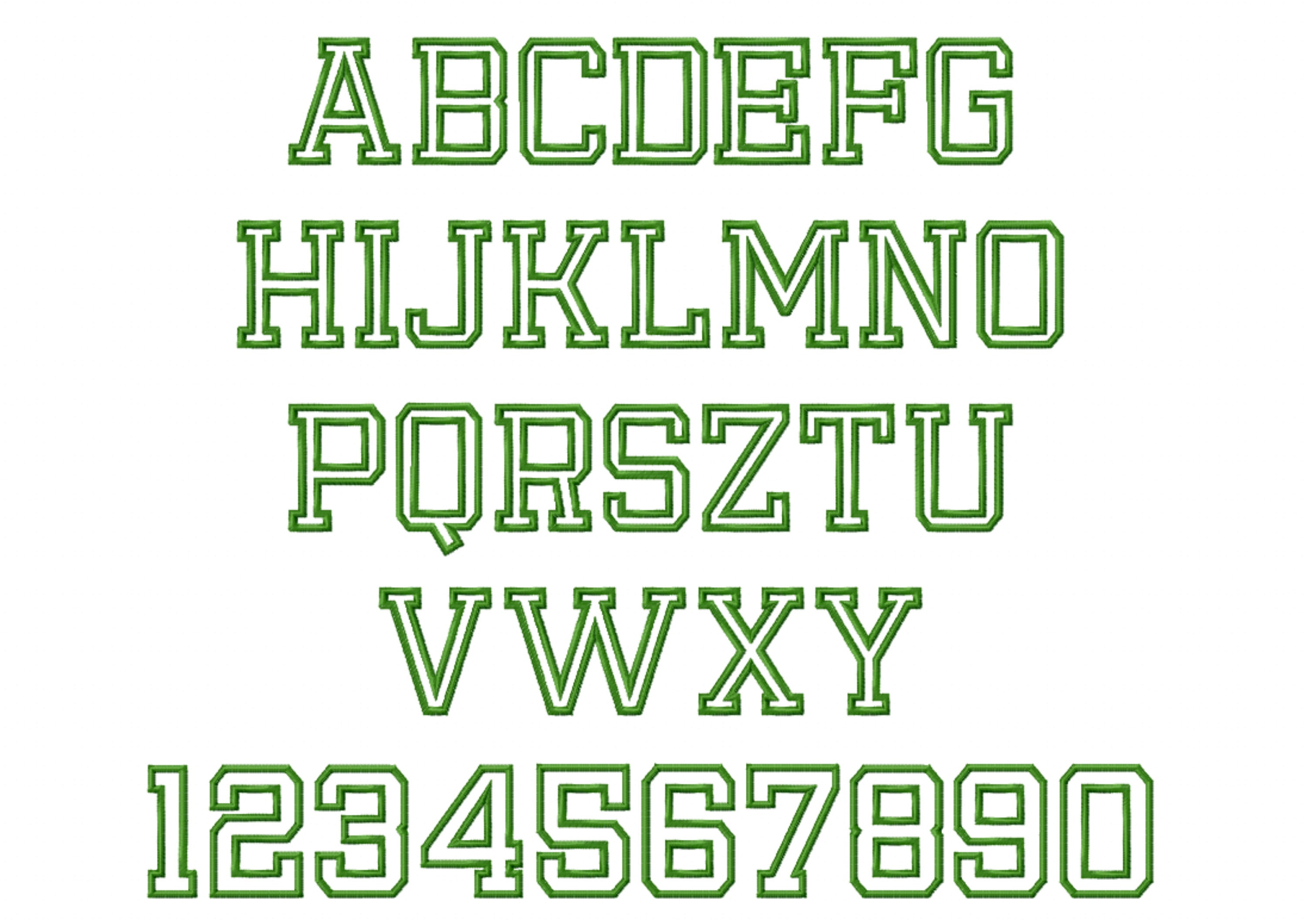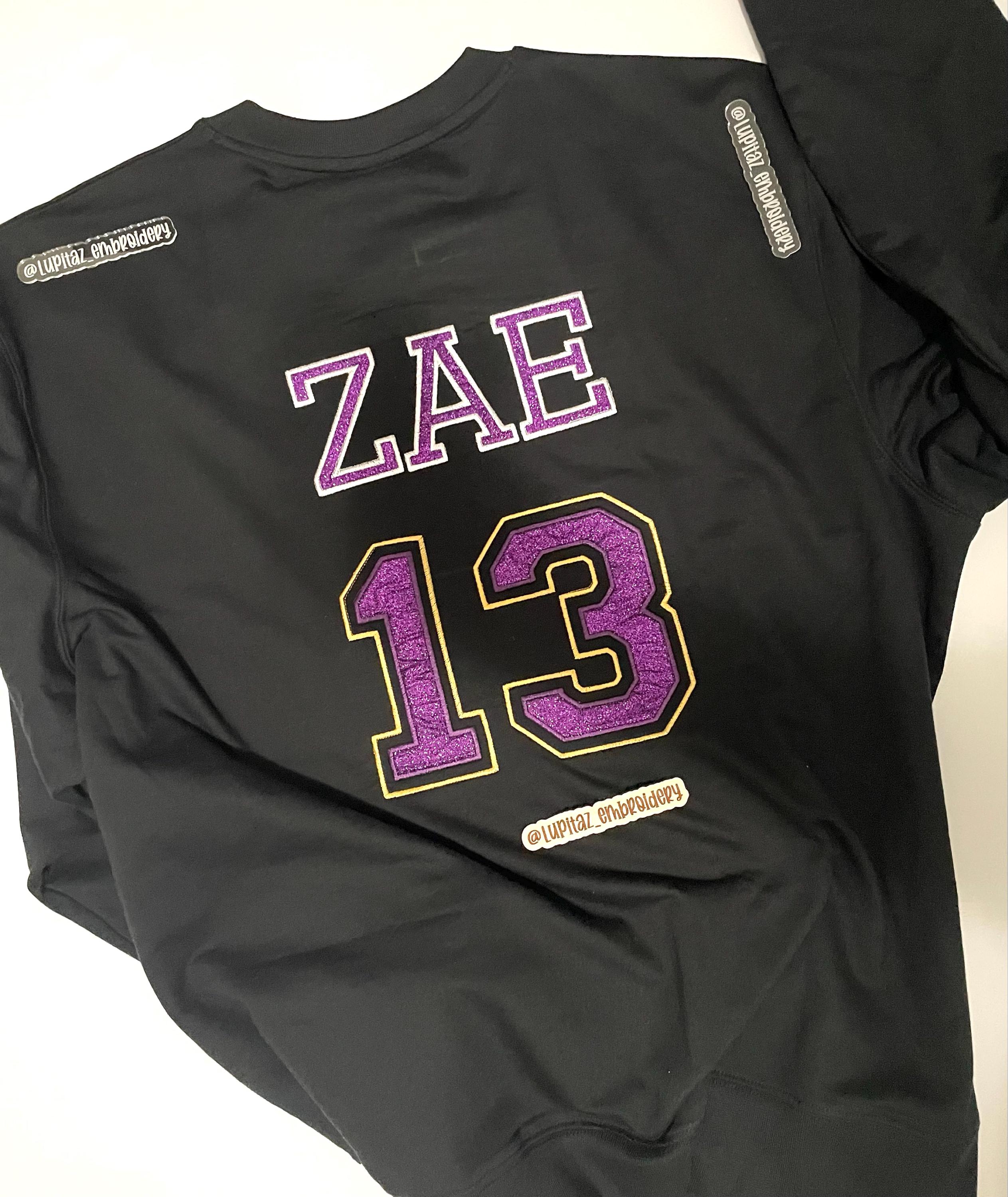
Thin Varsity FONT Athletic Sport High School Team Players machine embroidery designs, sport alphabet letters BX font included
The font has nice wide satin stitch outlines.
This is a font of capital letters and numbers